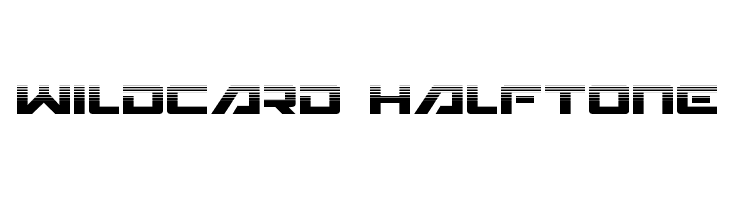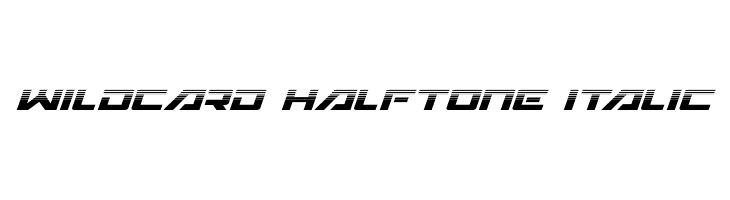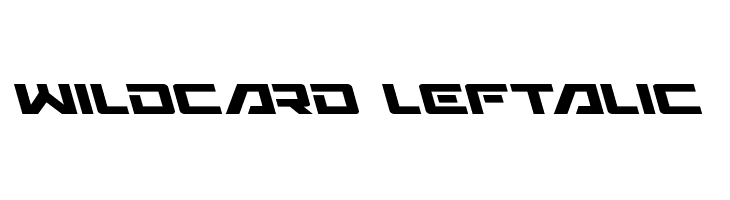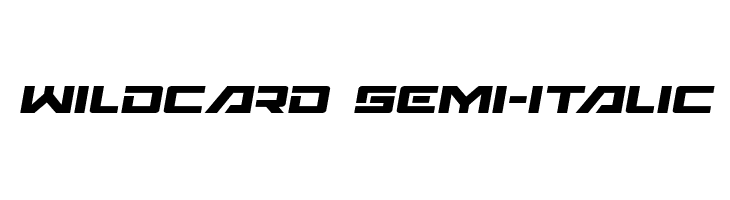
A futuristic, line-based font with a gradient effect and geometric design.
A dynamic, futuristic font with bold, italicized characters and a strong horizontal line motif.
A bold, futuristic font with a dynamic halftone effect.
A bold, italicized font with a futuristic halftone effect and angular design.
A bold, angular font with a futuristic and dynamic design.
A bold, angular, and slightly italicized font with a futuristic and dynamic style.